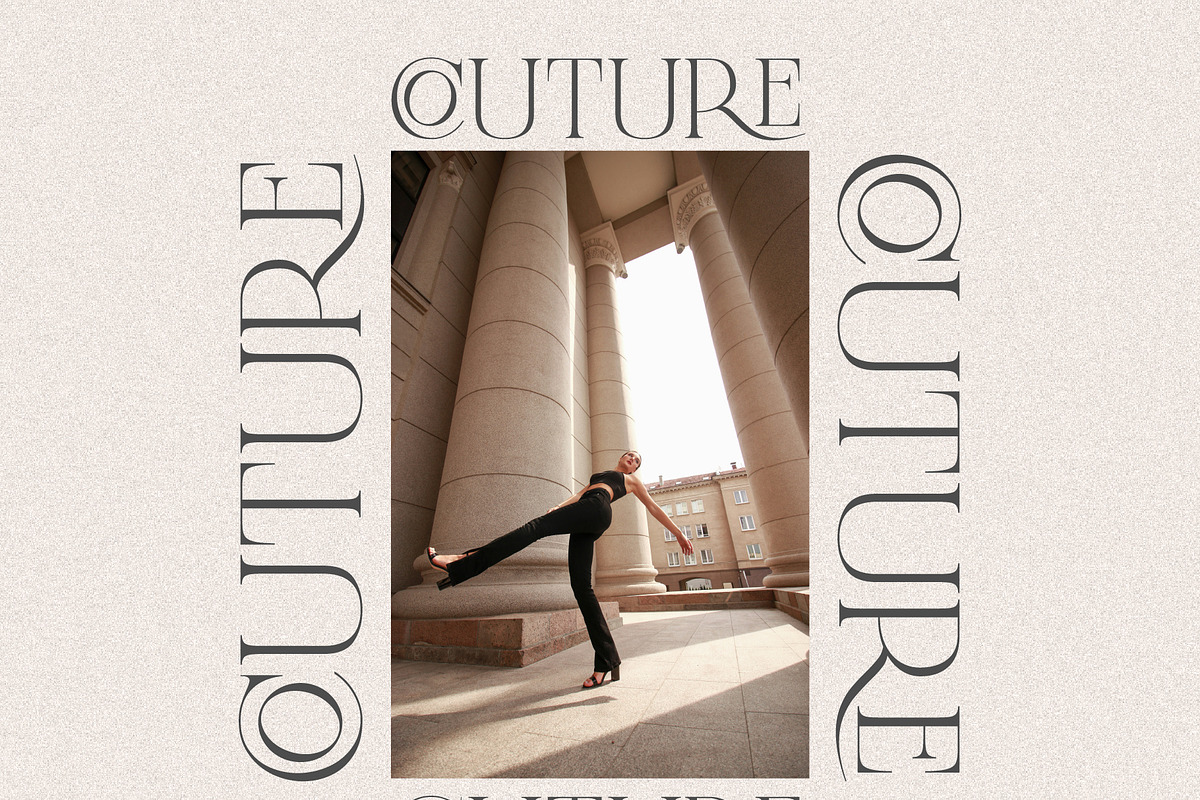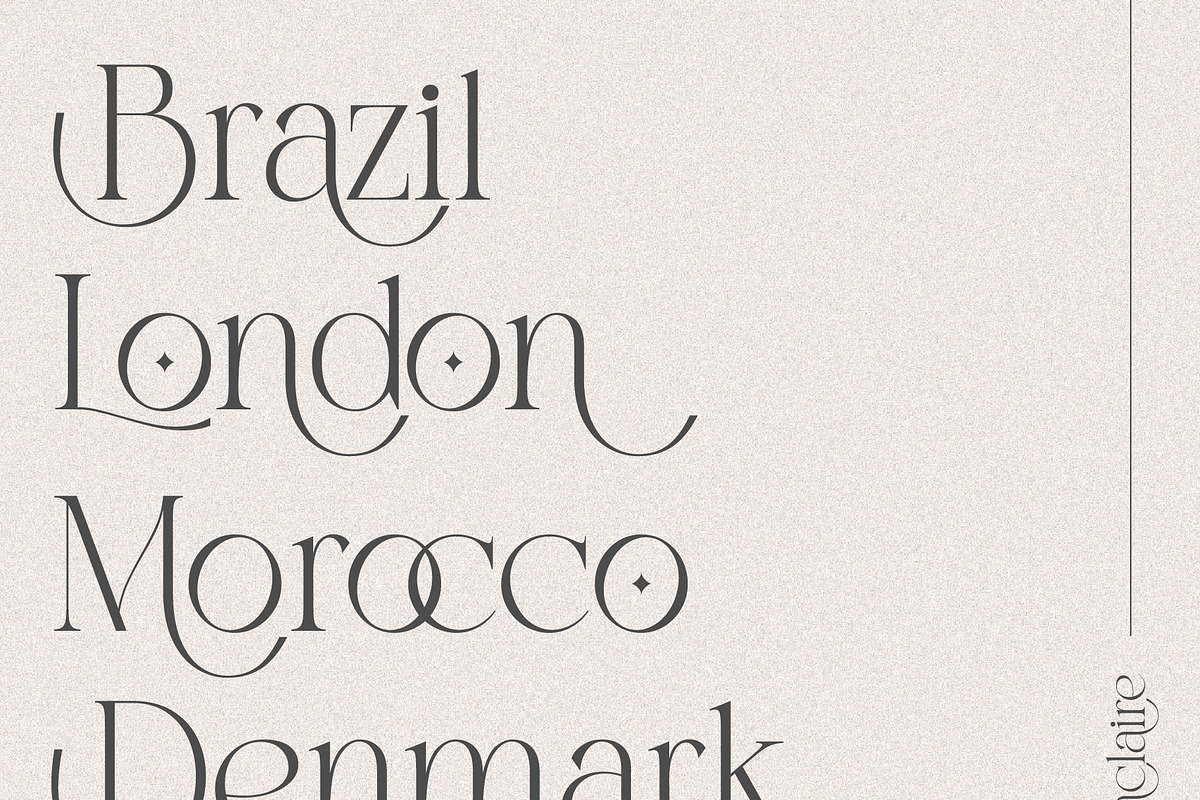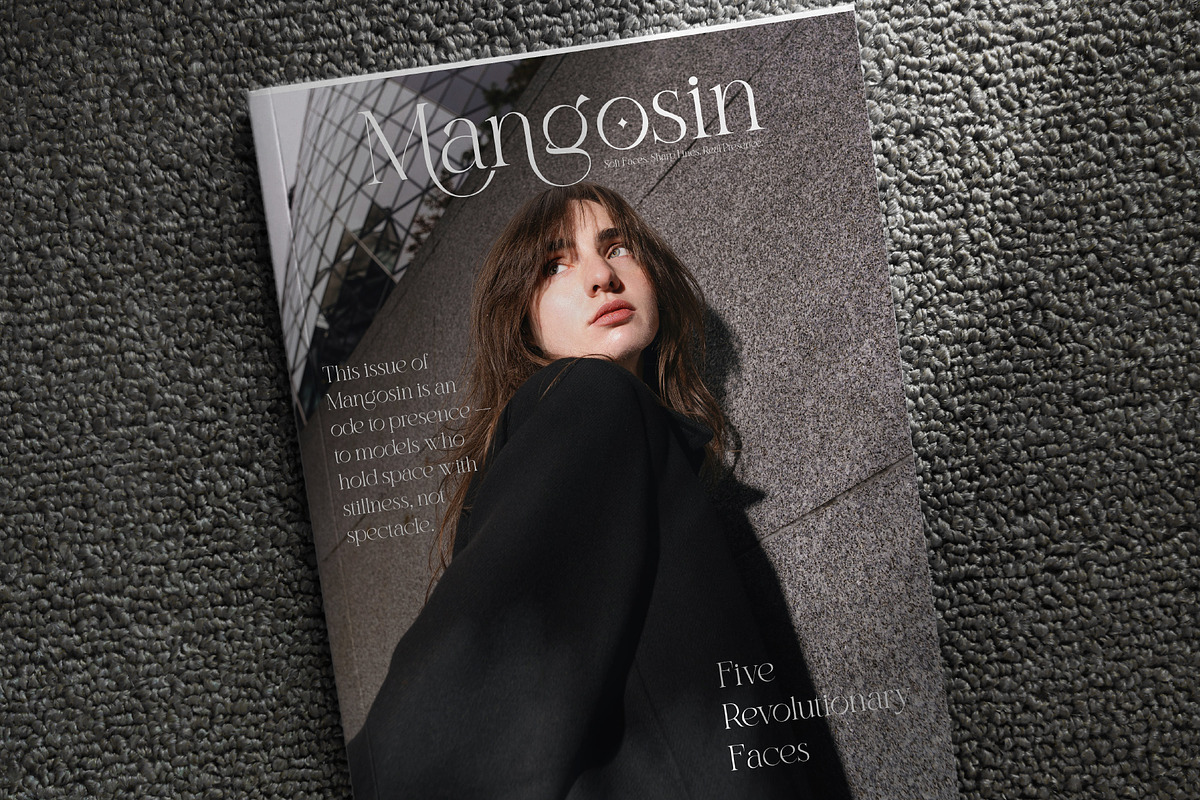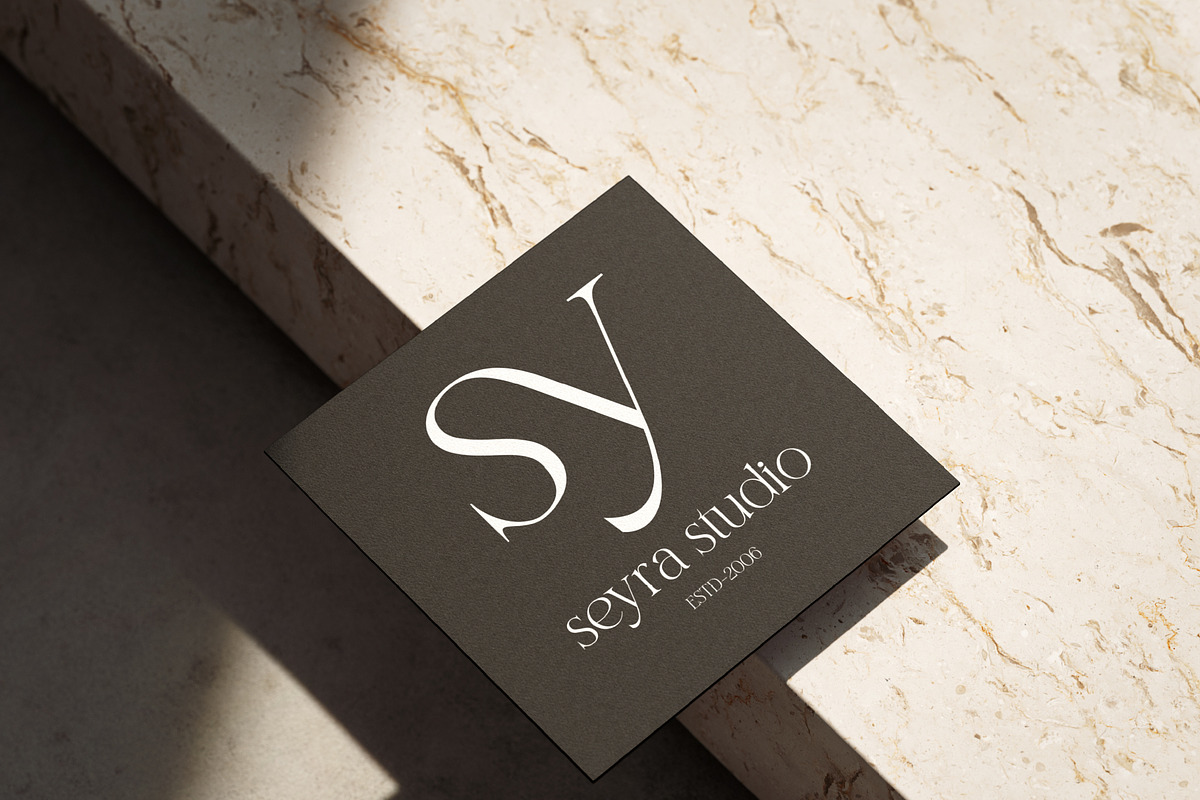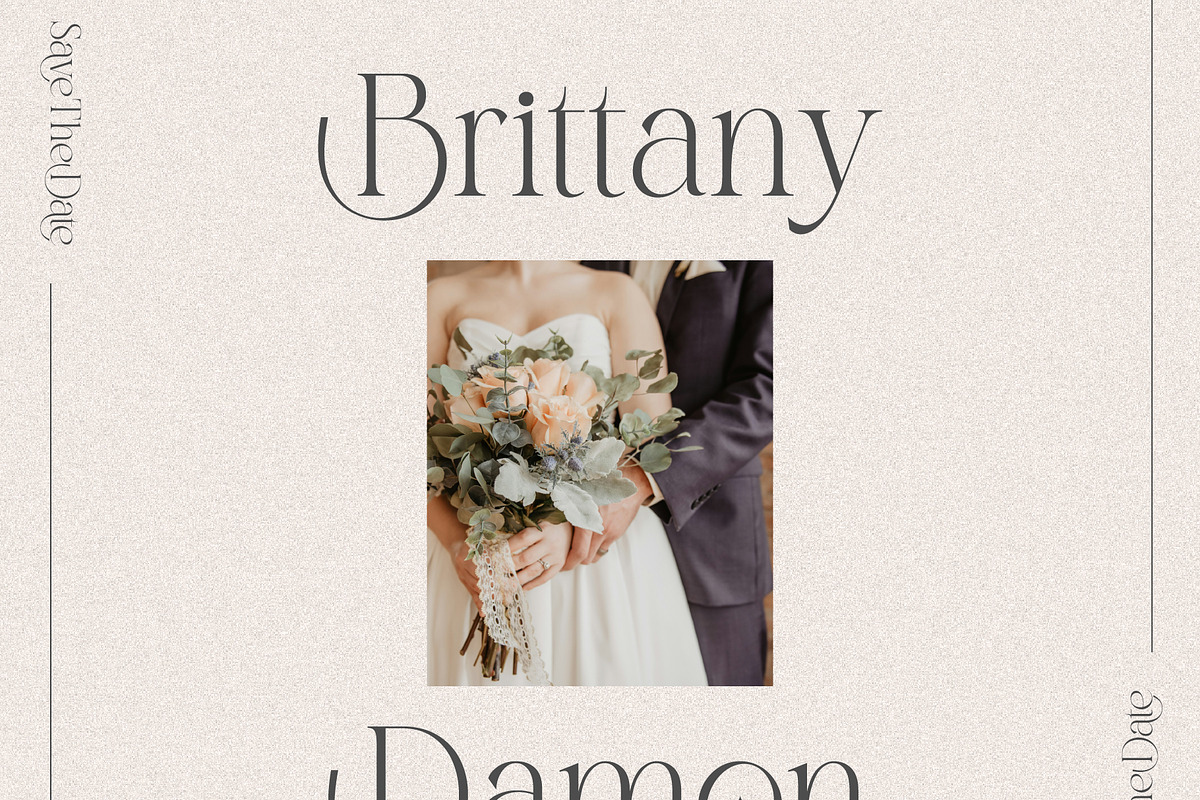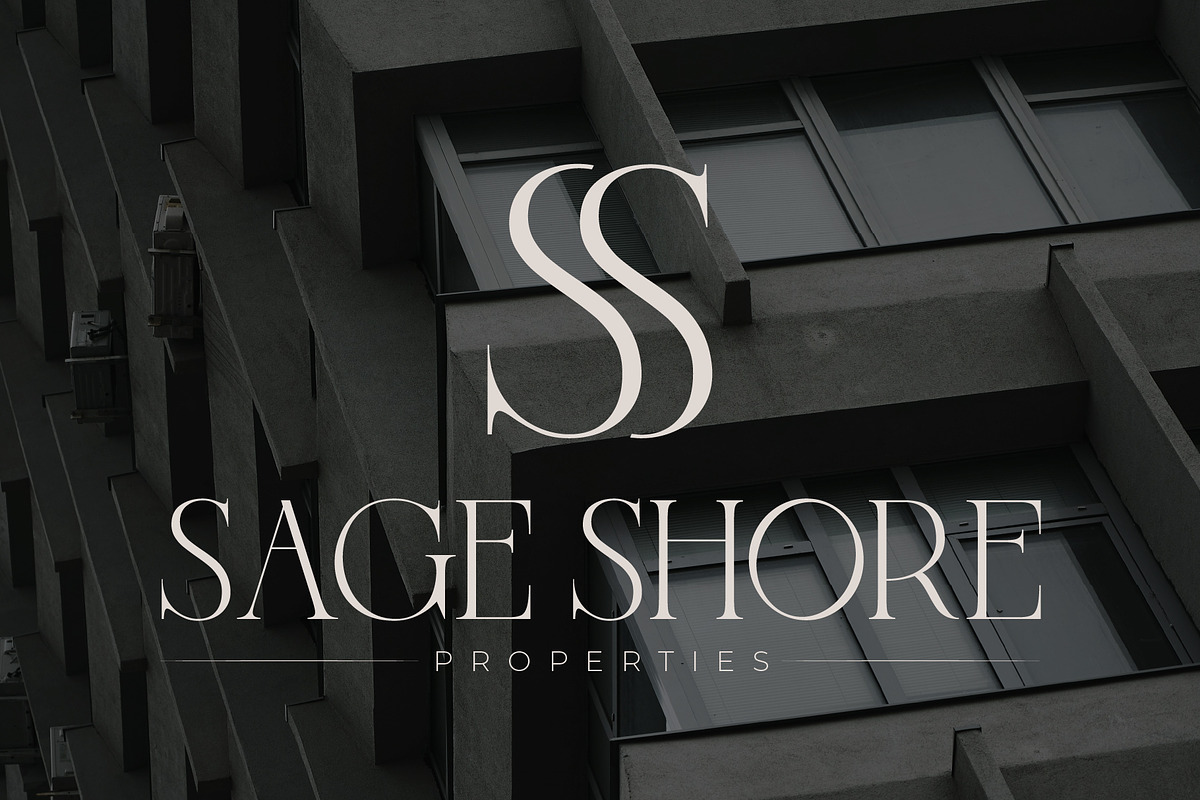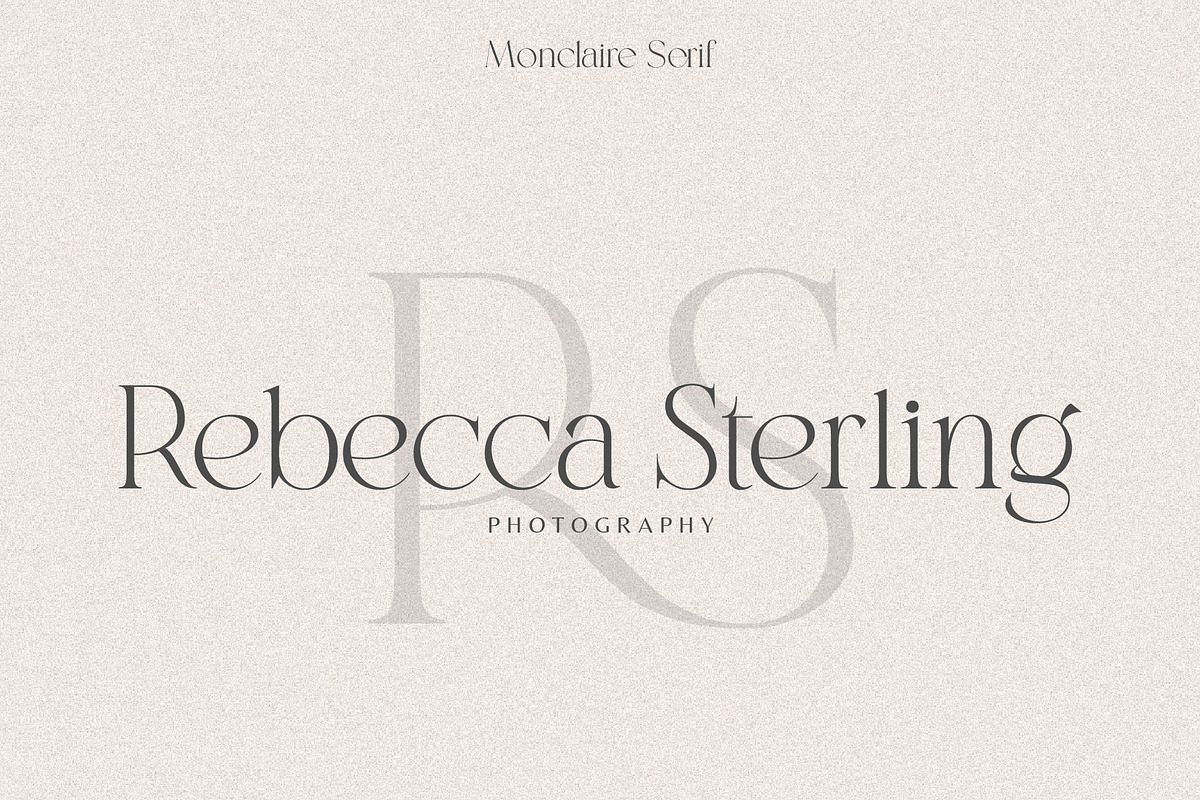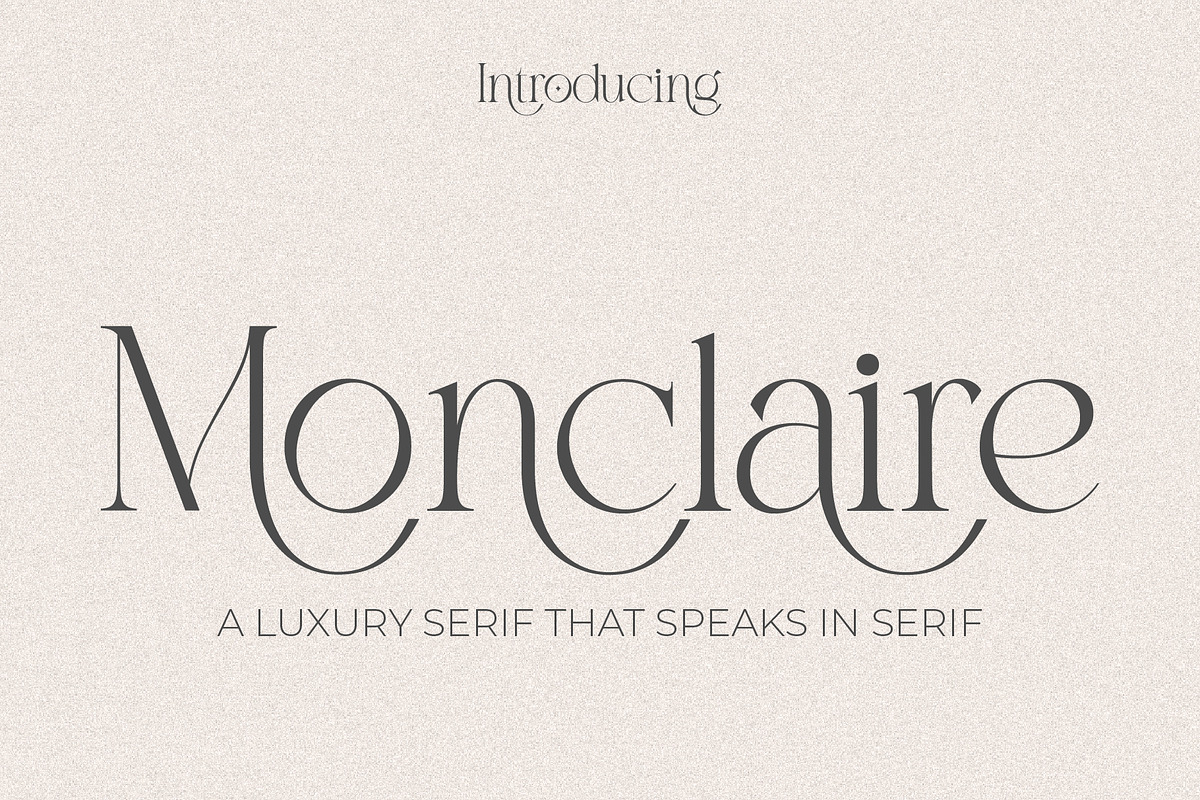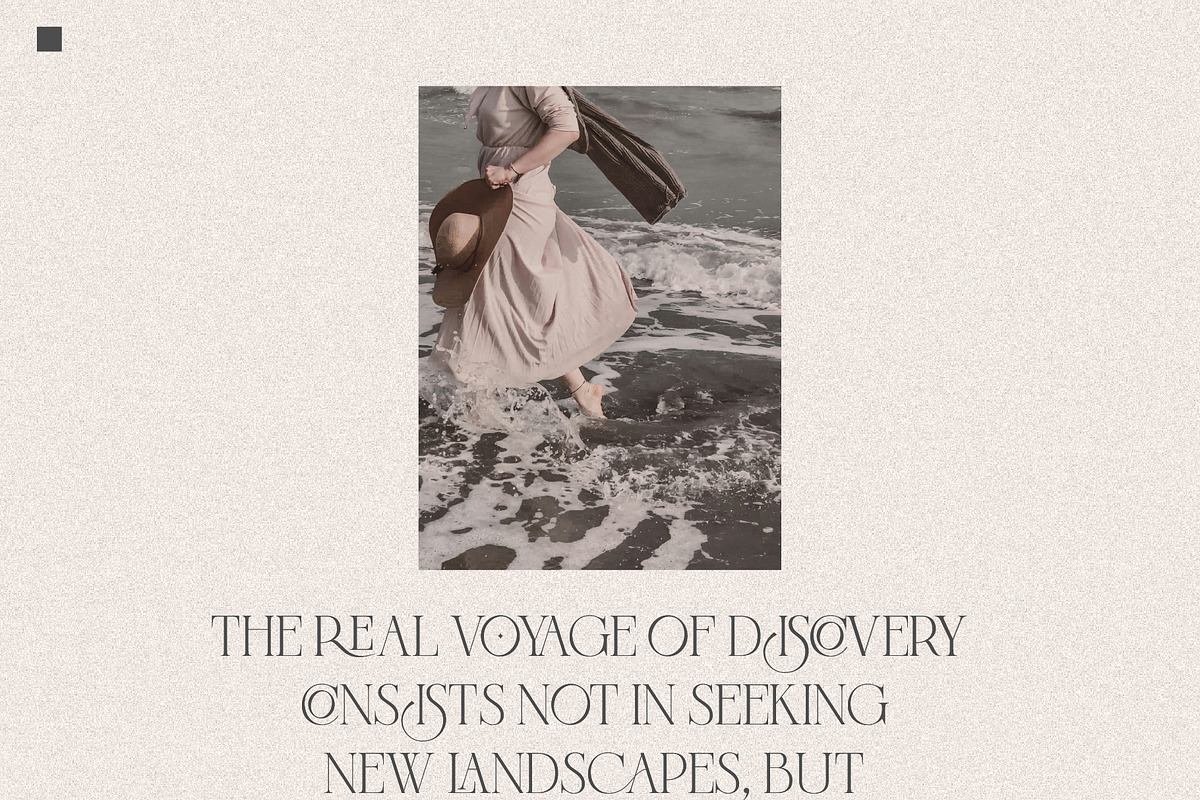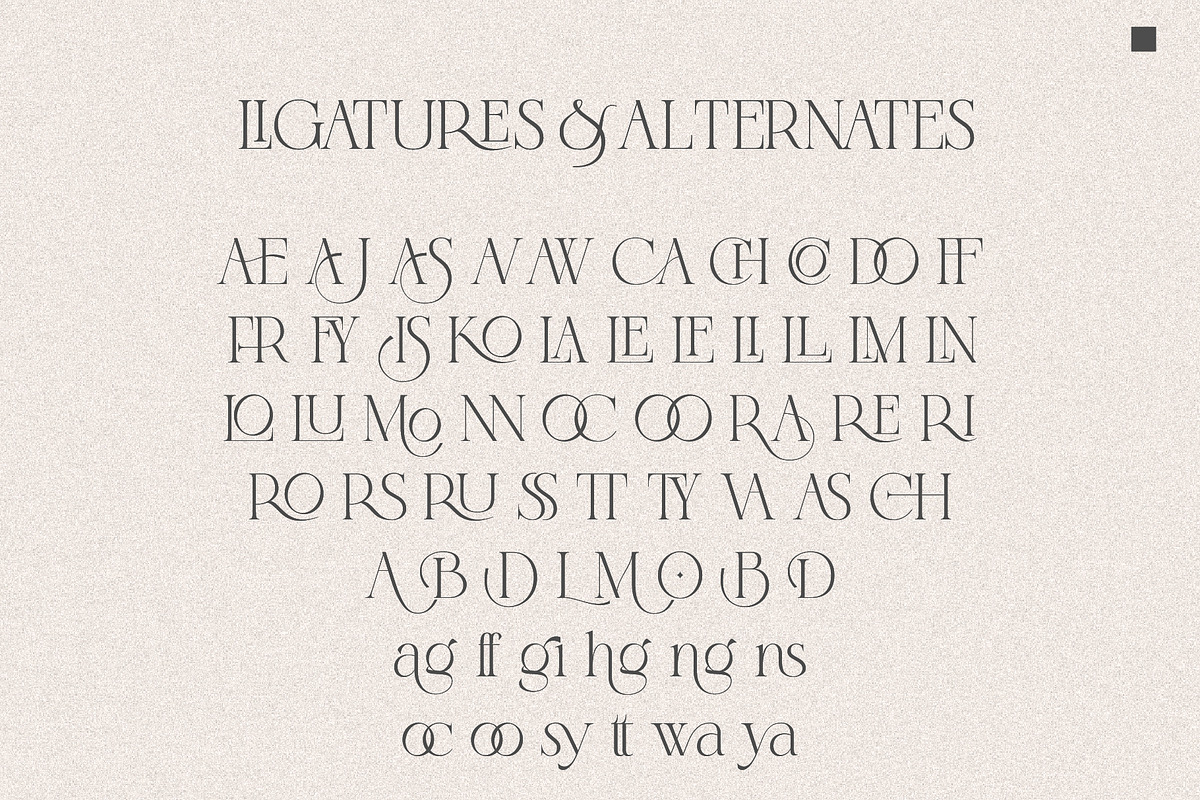
Monclaire
Say hello to Monclaire, a high-end serif font designed to bring elegance, versatility, and personality to your creative projects. Whether you're designing for fashion, branding, editorial layouts, luxury packaging, or wedding stationery, Monclaire delivers effortless sophistication.
- Elegant Ligatures – Dozens of thoughtfully crafted ligatures for smooth, natural letter flow.
- Stylish Alternates – A rich collection of stylistic alternates gives you the freedom to customize and elevate your typography.
- Multilingual Support – Supports a wide range of Latin-based languages for international use.
From luxe logos to graceful headlines, Monclaire helps your words make a lasting impression. Precision-crafted and full of personality, this typeface was built for designers who value detail and timeless aesthetics.